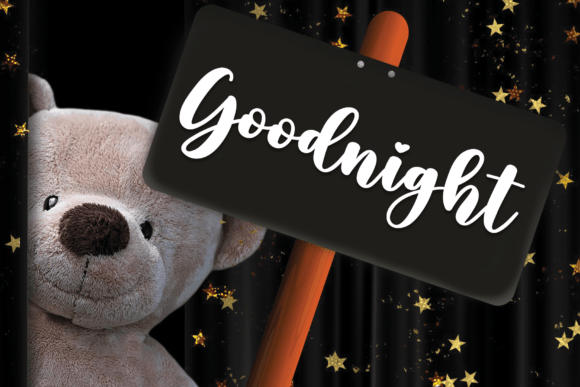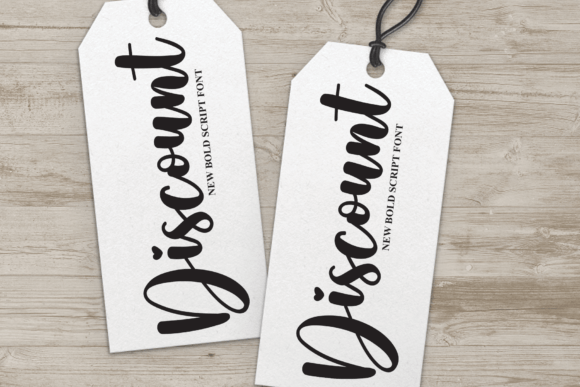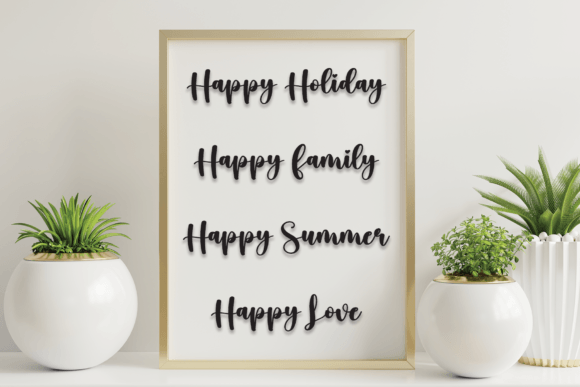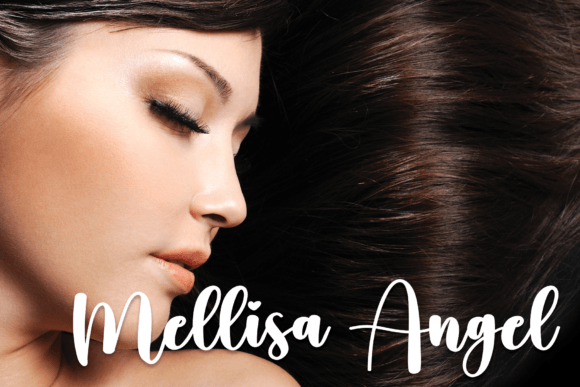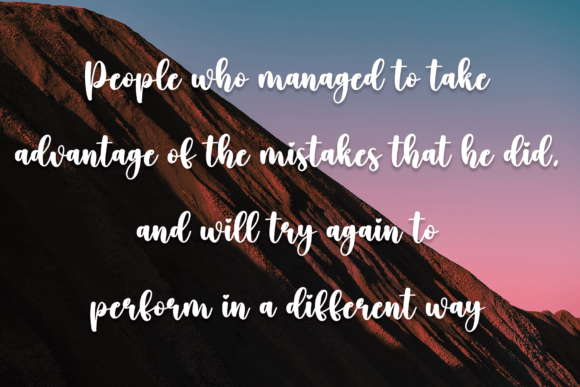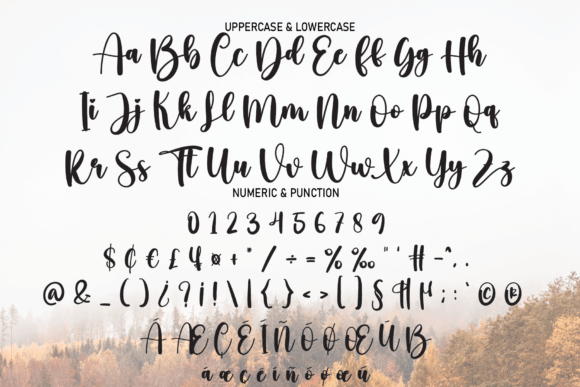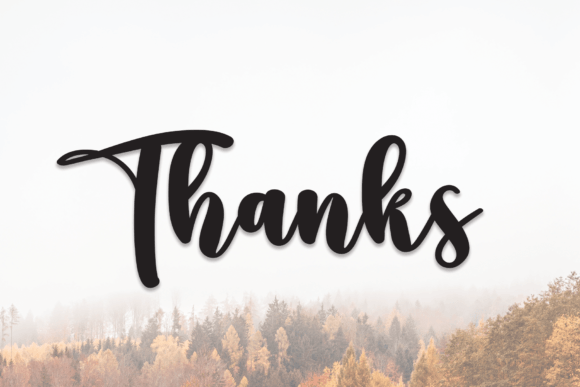
Hello Autumn Font
About Hello Autumn Font
Hello Autumn is more than just a font; it’s a delightful handwritten script that brings warmth and charm to a variety of creative projects. This versatile typeface is ideal for wall displays, wedding invitations, social media posts, logos, advertisements, product packaging, and much more.
The allure of Hello Autumn lies in its handwritten design, giving your projects a personal and inviting feel. The characters are crafted with a lovely and fluid style, creating a script that exudes coziness and friendliness. This makes Hello Autumn an excellent choice for projects that seek a blend of charm and a touch of autumnal warmth.
In wall displays and wedding invitations, Hello Autumn stands out as a delightful and distinctive choice. Its handwritten script adds a unique touch, ensuring that your designs carry a personal and heartfelt sentiment. Hello Autumn brings a sense of comfort and creativity to your projects, making them memorable and endearing.
For social media posts, logos, and advertisements, Hello Autumn’s charming handwritten style enhances the overall appeal of your brand. The fluid design of the script adds a touch of personality, making Hello Autumn a versatile choice for projects where a friendly and inviting vibe is desired.
By incorporating Hello Autumn into your font collection, you’re not just adding a typeface; you’re selecting a design element that brings charm and a touch of autumnal coziness to your creative endeavors.
In essence, Hello Autumn is more than just a font; it’s an embodiment of handwritten charm that transforms your wall displays, wedding invitations, and various creative projects into visually delightful and genuinely inspired works of art, evoking the spirit of the autumn season.